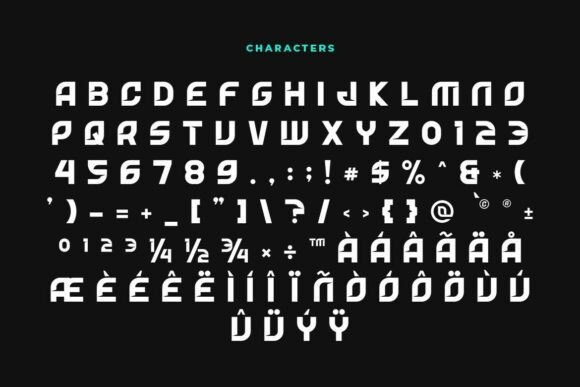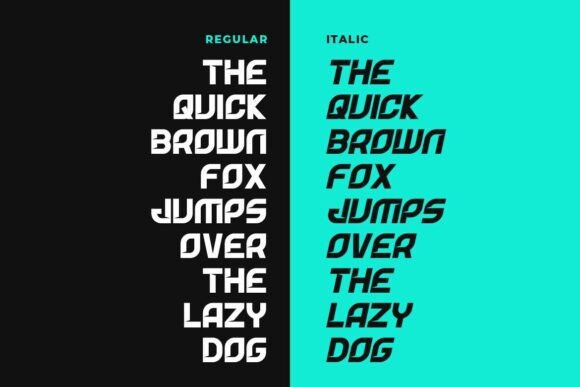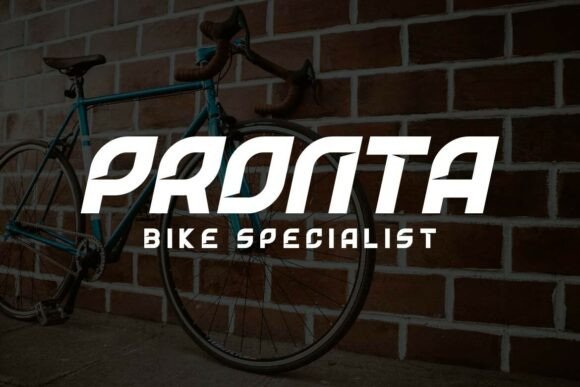
Introduction to Helno Font
Have you ever stared at a blank canvas, waiting for inspiration to strike? The blank page, the empty design space – it can be daunting. But what if that blank slate could be transformed into a bold, eye-catching masterpiece? Enter the Helno Font, a powerful sans serif font that’s designed to deliver maximum impact.
With its clean geometry and contemporary styling, Helno Font is perfect for designers looking to make a statement. Whether you’re working on a branding project, creating sports graphics, or designing digital campaigns, Helno Font is a valuable resource that’s sure to elevate your creative project.
Key Features of Helno Font
- Unique, elegant design suitable for creative projects and design resources.
- Includes a range of glyphs and characters, making it suitable for various languages and applications.
- Perfect for use in logos, branding, and typography-based creative projects, thanks to its sophisticated and modern design.
Honest Review: Helno Font
As a designer, I’m always on the lookout for high-quality design resources to enhance my creative projects. Recently, I had the chance to work with the Helno Font, and I’m excited to share my honest review.
- ✨ The Helno Font offers a wide range of styles, from casual to formal, making it a versatile choice for various creative projects.
- ⚠️ The font may not be suitable for projects that require a high level of customization, as it can be difficult to modify the font’s settings.
- ⚠️ Some users may find the font’s style to be too minimalist, which may not appeal to those who prefer more elaborate designs.
Overall, I was impressed with the Helno Font’s quality and flexibility. While it may have some limitations, it’s a solid choice for designers looking for a reliable, free design resource.
Tips for Getting the Most Out of Helno Font
With a transparent background, the Helno Font is perfect for overlaying on images or videos.
– Use it for creating eye-catching titles or headings.
– Experiment with different font sizes and styles to add depth to your design.
The Helno Font is ideal for:
– Graphic design projects
– Digital marketing materials
– Branding and logos